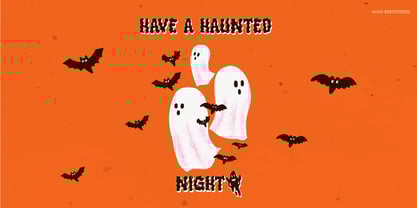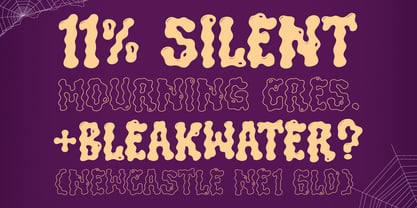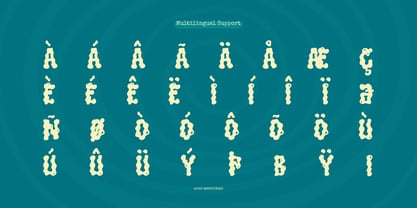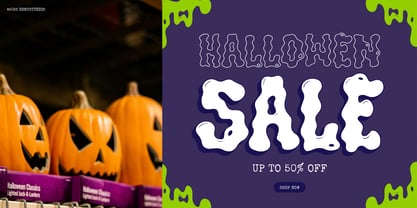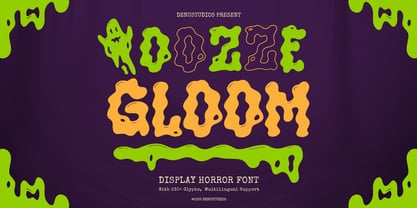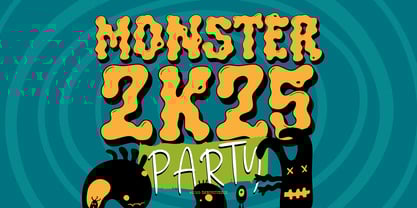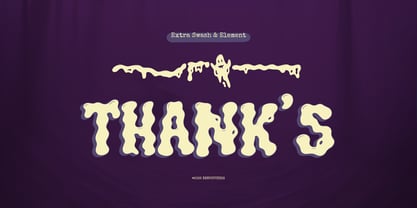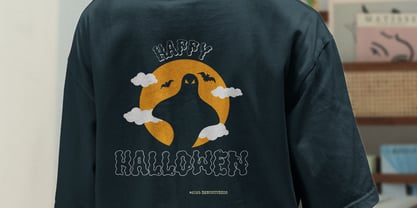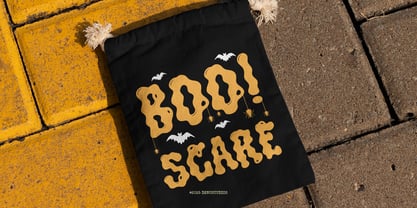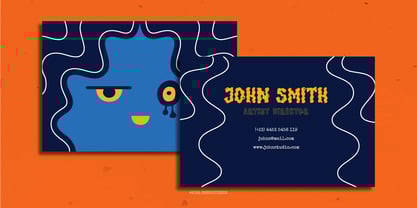
Ooze Gloom
by Denustudio
The Ooze Gloom Font Family was designed by Dede Nugraha and published by Denustudio. Ooze Gloom contains 1 styles.
Ooze Gloom | Display Horror Font, from Denustudios, suitable for any projects such as: logos, branding projects, homeware designs, product packaging, mugs, quotes, posters, shopping bags, t-shirts, book covers, name card, invitation cards, greeting cards, label, photography, watermark, special events, and all your other lovely projects that need Display Horror Font a taste.
• Regular and Italic
• Alternate and Ligature
• Fonts include multilingual support